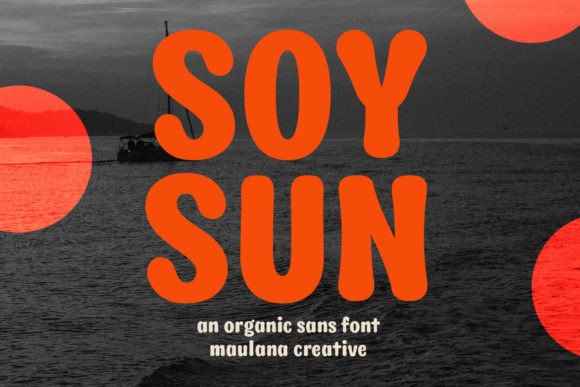
Embrace your creativity with Soysun, the modern flare humanist sans display font that will transport your designs to new heights. This captivating font exudes a unique blend of sophistication and playfulness, featuring a medium stroke, fun character, and a treasure trove of ligatures and alternates that infuse your work with individuality.
Awaken your imagination and let Soysun ignite your passion for visual expression. Its versatility knows no bounds, making it the perfect choice for a myriad of design projects. Whether you're crafting a captivating logo that leaves an indelible mark, engaging your audience on social media, or creating movie and book titles that demand attention, Soysun will effortlessly elevate your work to new heights.
Journey into the realm of typographic excellence with Soysun, and unlock a world of possibilities. Its charm extends to both short and long texts, enhancing every project with an air of elegance and distinction. Pair it with a script or serif font for a harmonious blend that exudes timeless appeal.
Experience the transformative power of Soysun today, and elevate your creative vision to unprecedented levels. Make a stunning impact with every design, leaving your audience spellbound and eager for more. Unleash your creativity and embrace the infinite possibilities that await you with Soysun.